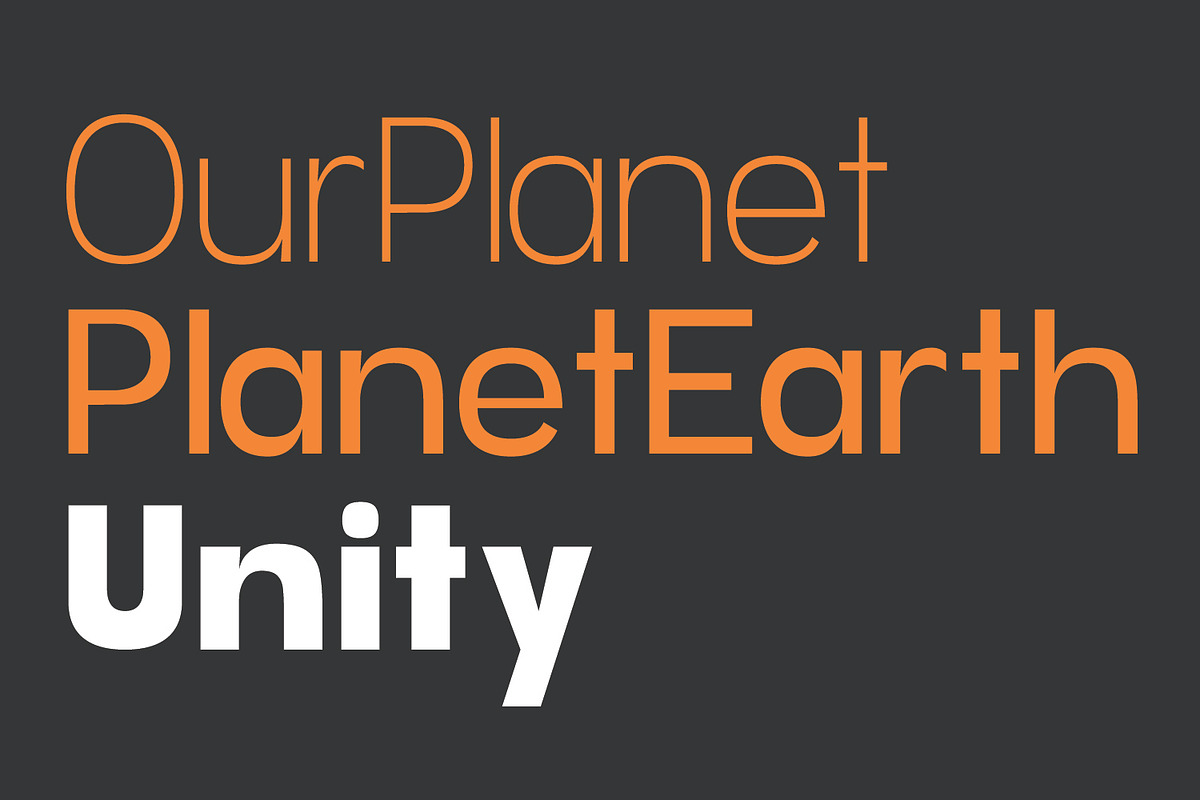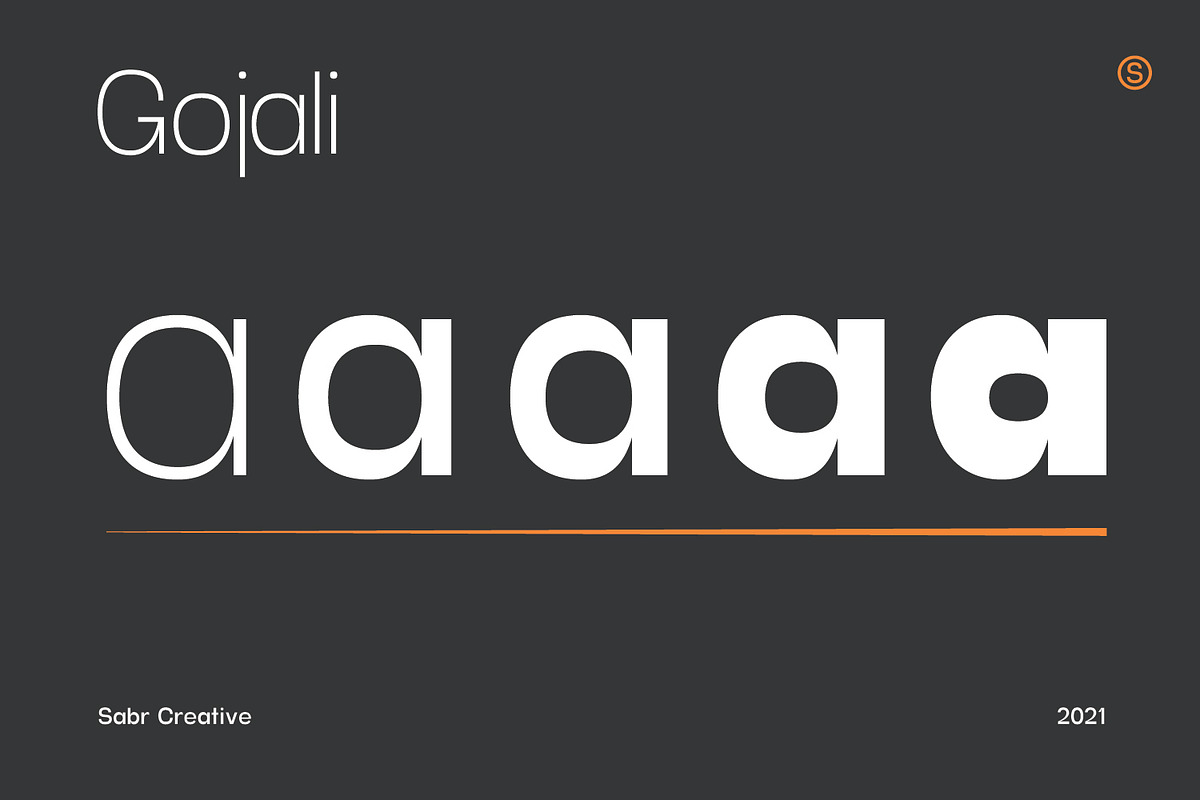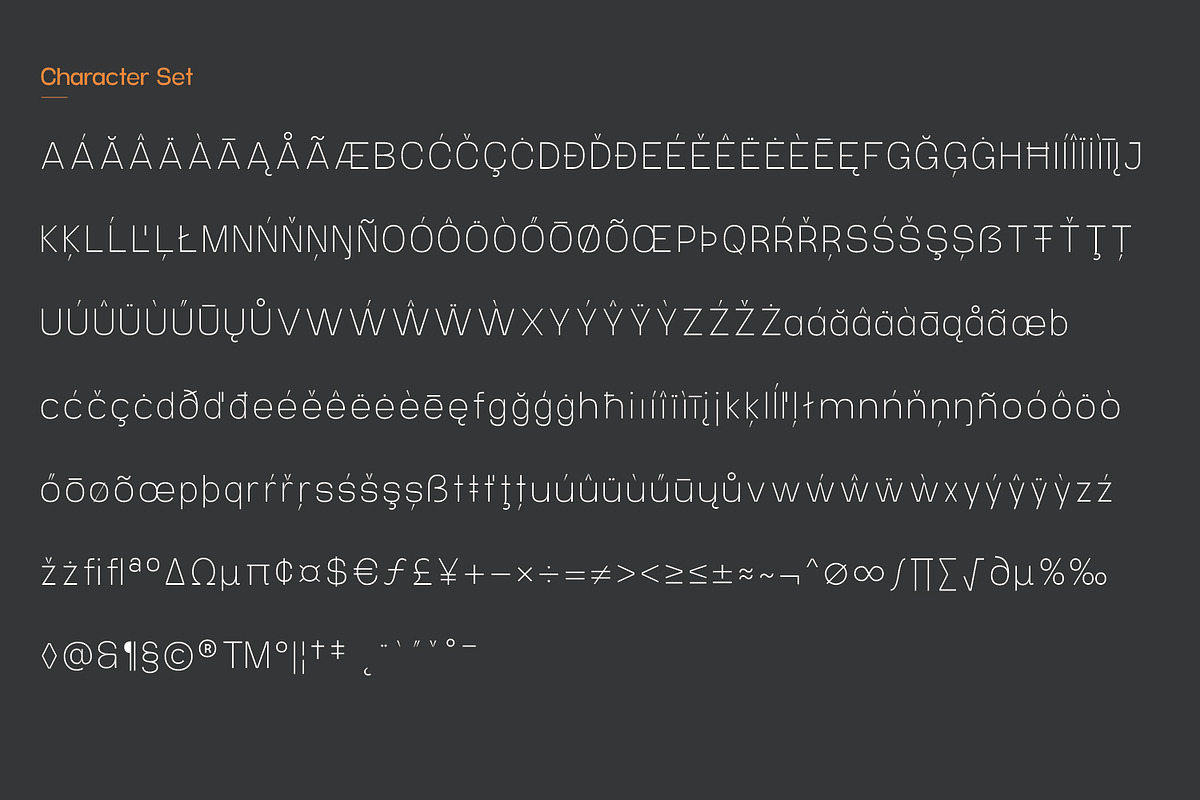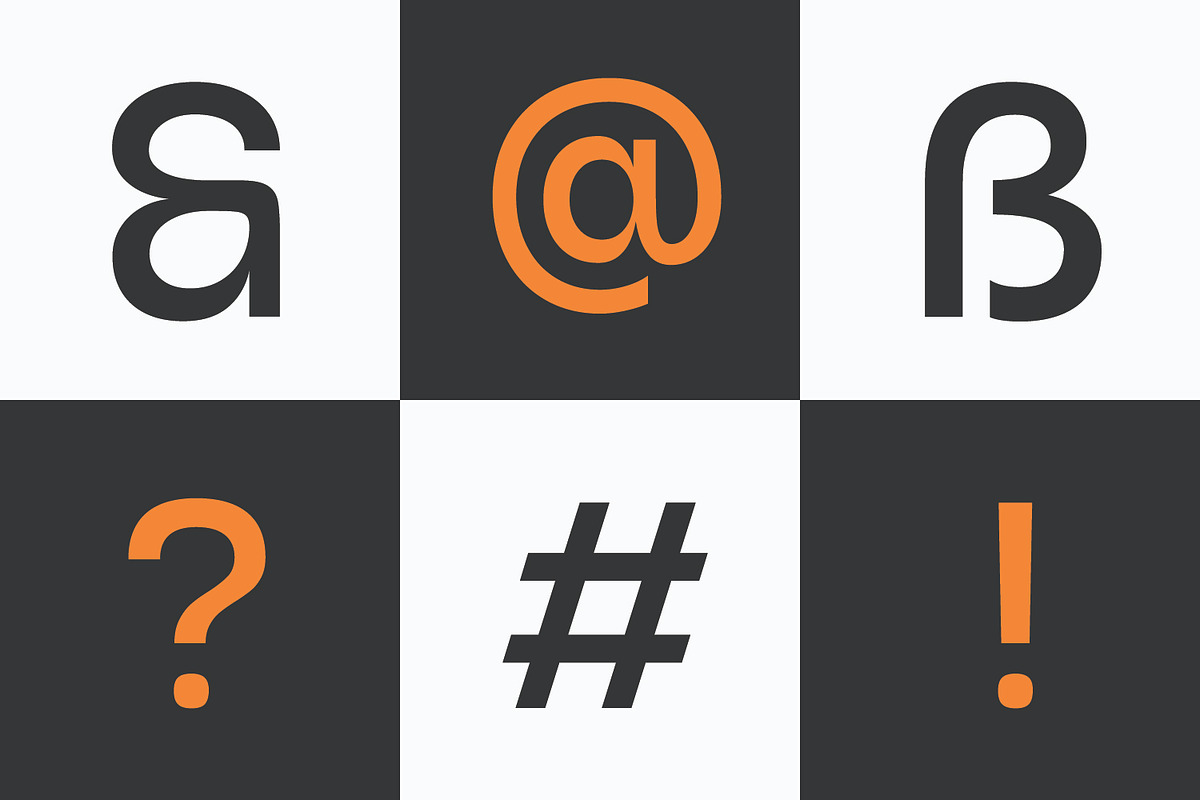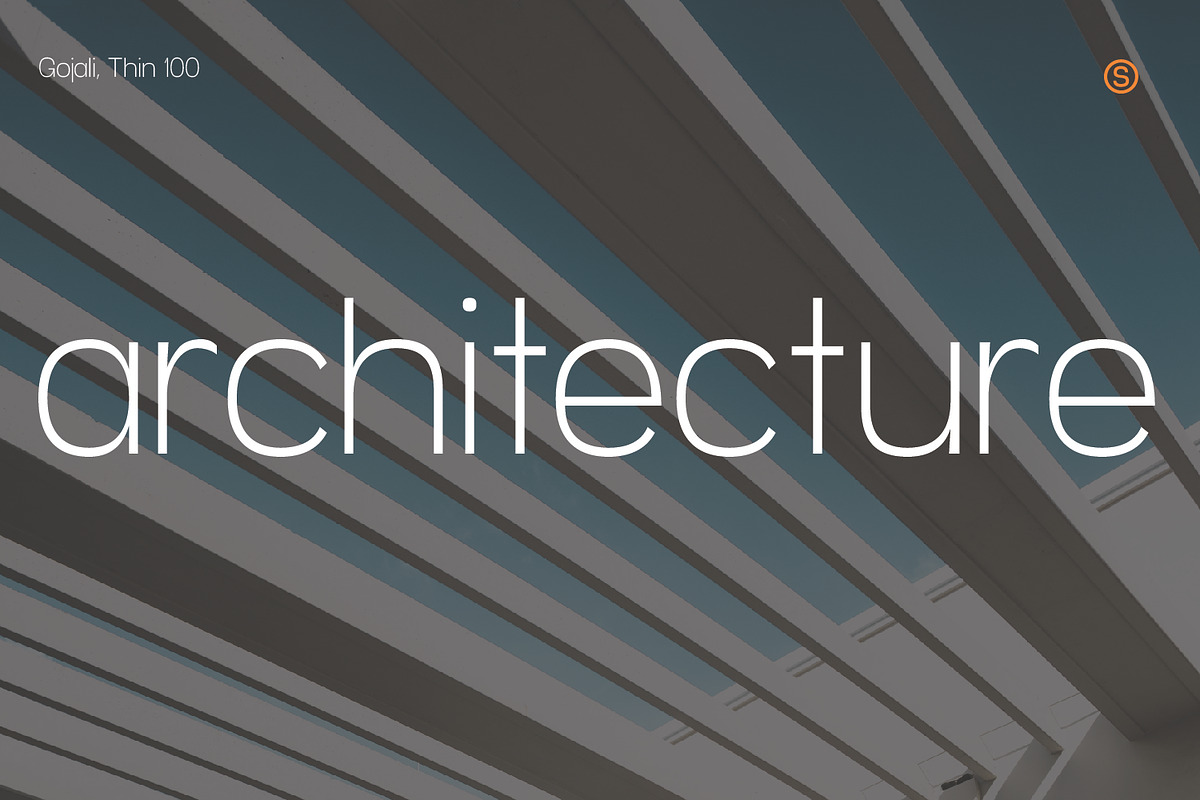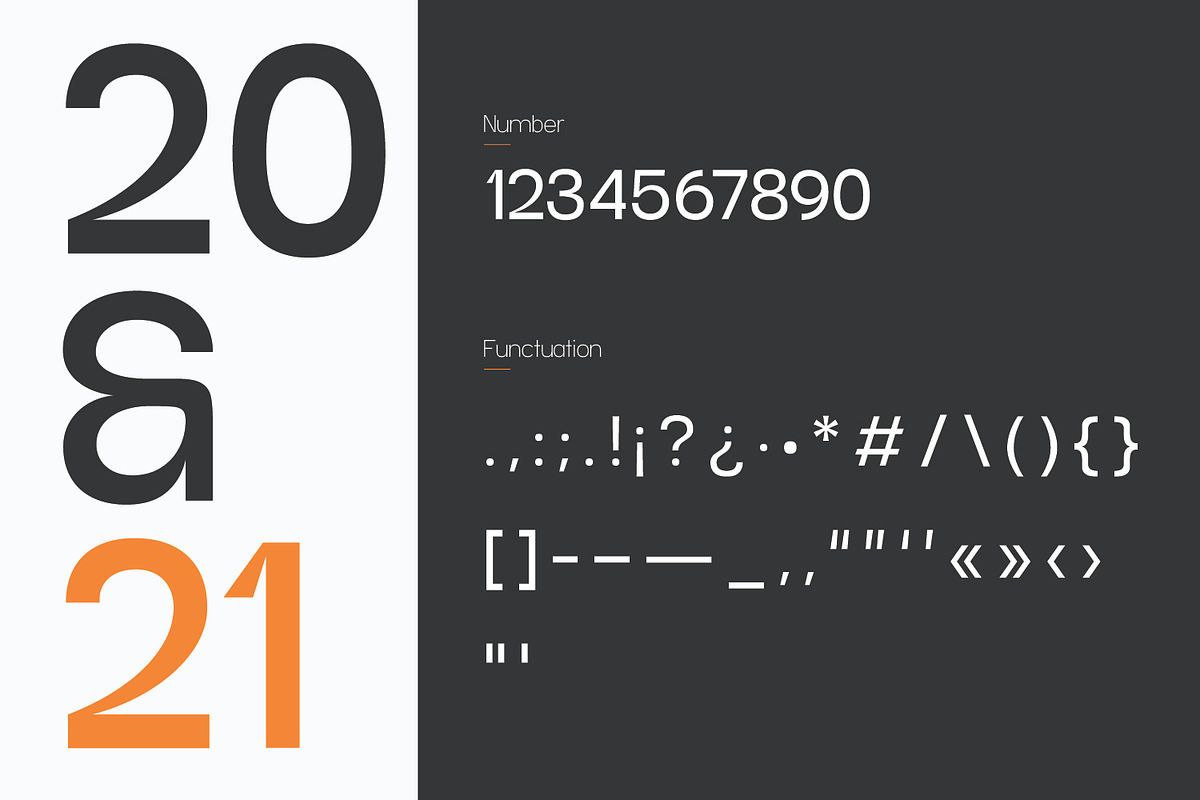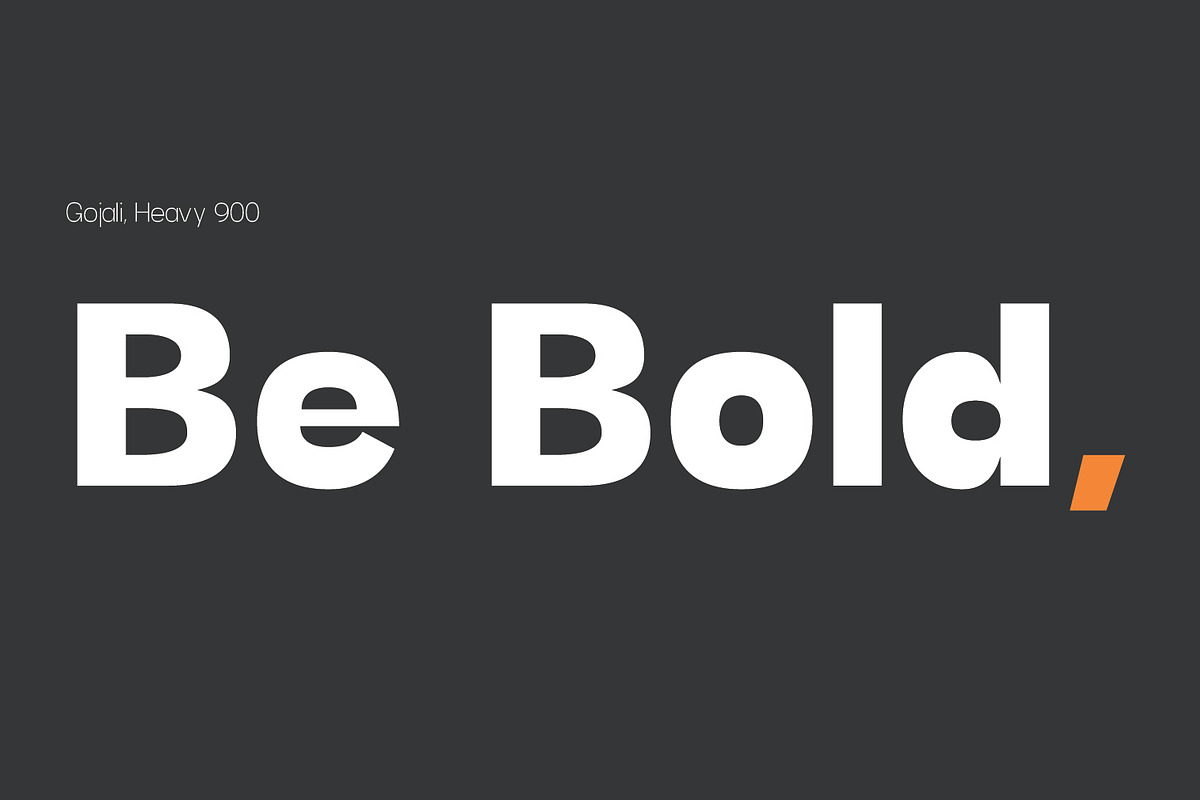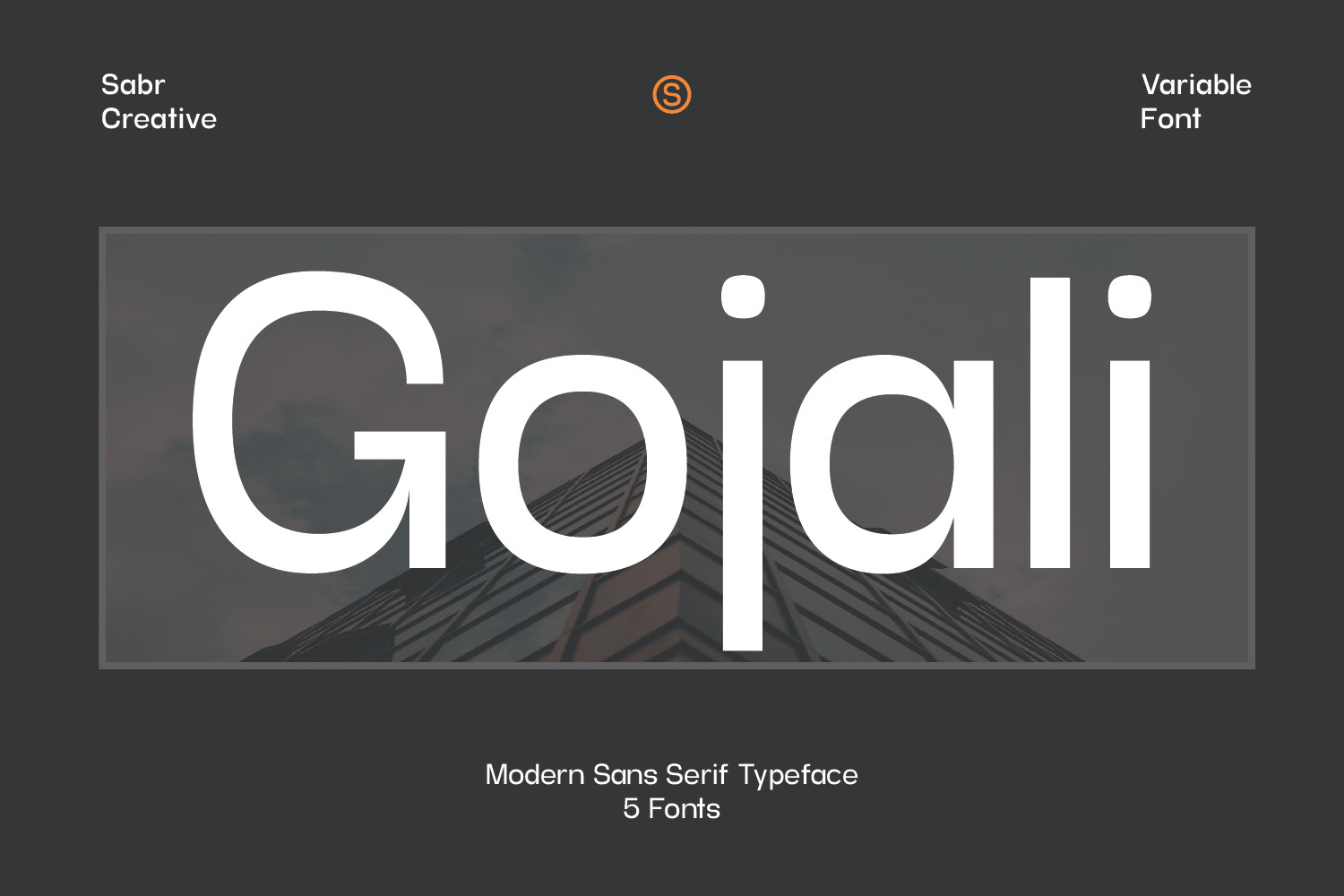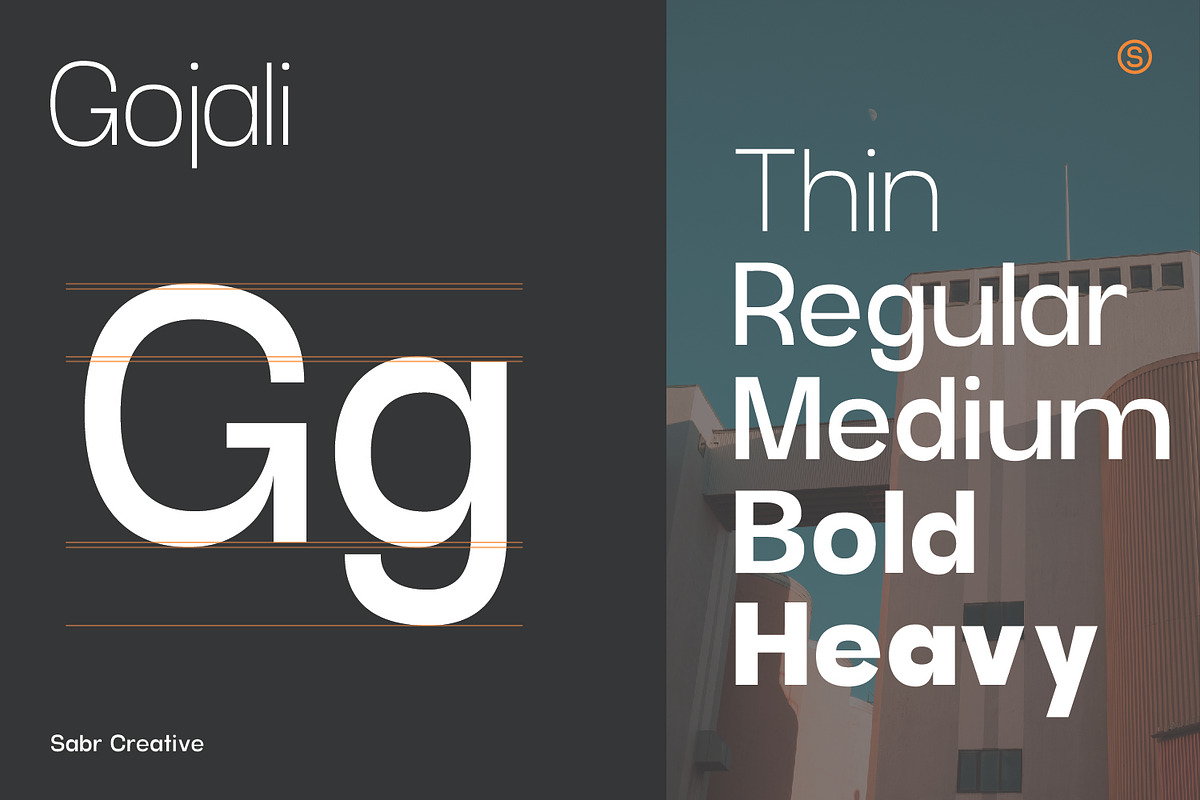
Gojali - Variable Font
Gojali is a sans-serif font family that is fresh, geometric, and has a modern twist with a grotesk, humanist style.
The typeface is versatile and can be used successfully in Magazines, Posters, Branding, Websites, etc.
Having various sizes makes it very easy for you to use this font and has full support for Western, Central and Eastern European languages.